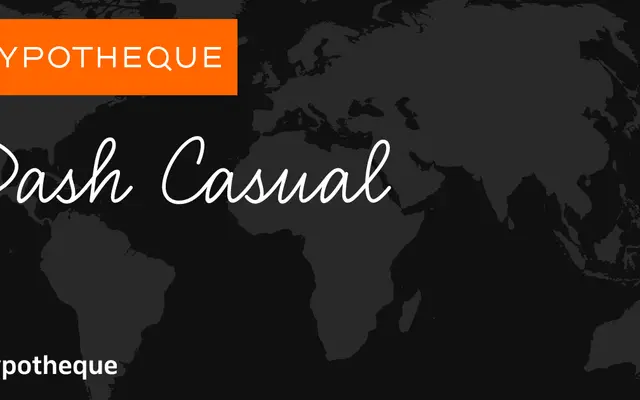
Dash Casual specimen from Typotheque
One of four stylistically related subfamilies in Typotheque's Dash system, offering six weights across three widths and a variable font companion.
Dash Casual is part of a larger system alongside Dash Slow, Fast and Fastest, each subfamily sharing the same weight and width structure but varying in stroke rhythm and apparent energy. Six weights from Hairline to Bold are available in Standard, Semiwide and Wide proportions, giving eighteen static styles per subfamily. A variable font version covers the full range for flexible typographic control.
Dash Casual is part of a system of related sans-serif subfamilies differentiated by stroke rhythm and speed; the Casual variant suggests a warm, humanist quality across its range of widths and weights.